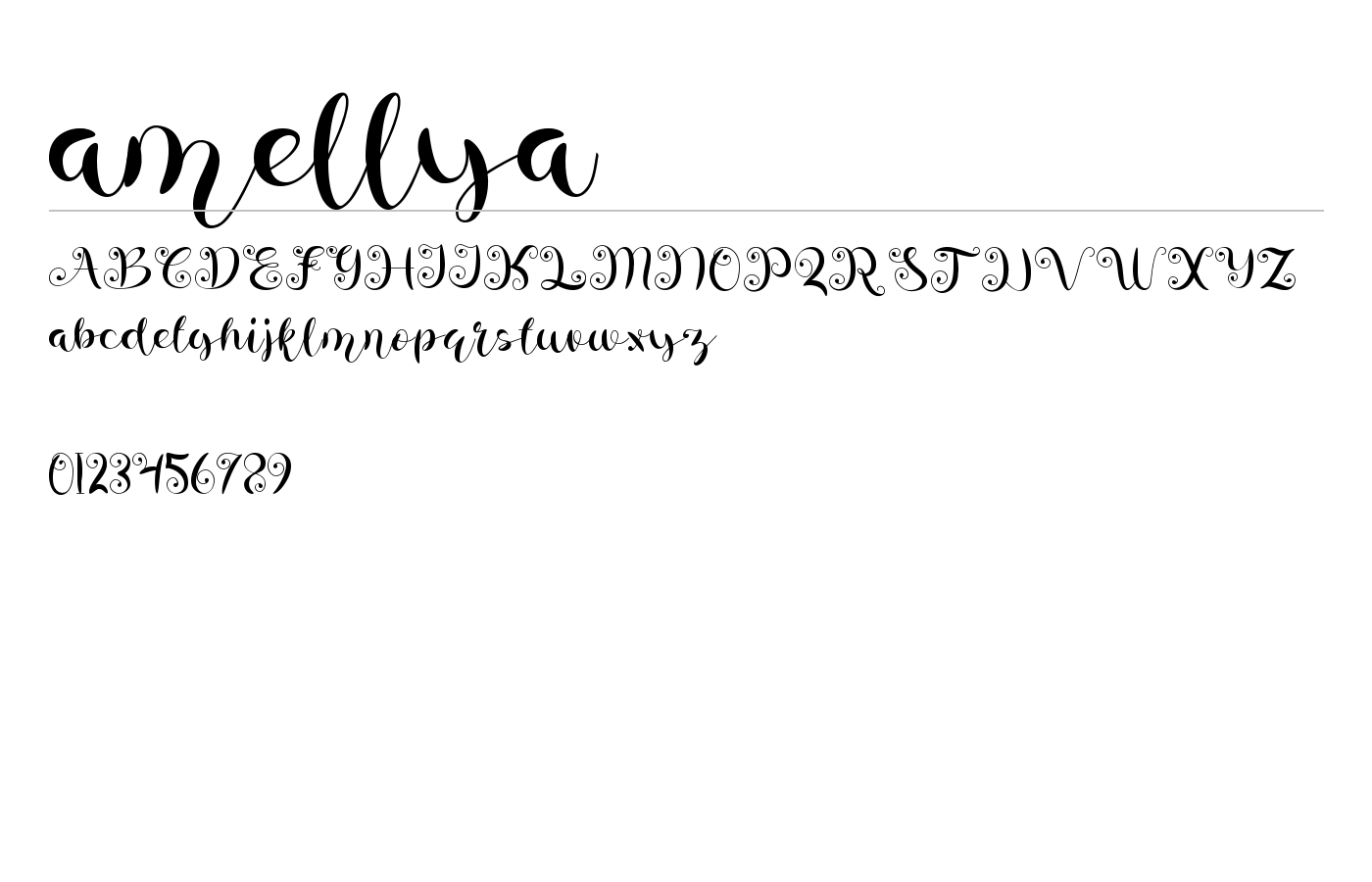
Amellya is a decorative script font with elegant, flowing strokes in the lowercase and whimsical, curly embellishments in the uppercase, creating a playful yet sophisticated feel. Its moderate weight and varied stroke contrast give it a lively personality, making it ideal for invitations, branding, and creative projects that seek a charming and artistic touch. This font works beautifully in headlines or display uses where its unique letterforms and ornamental details can truly shine.
amellya Font
About amellya Font